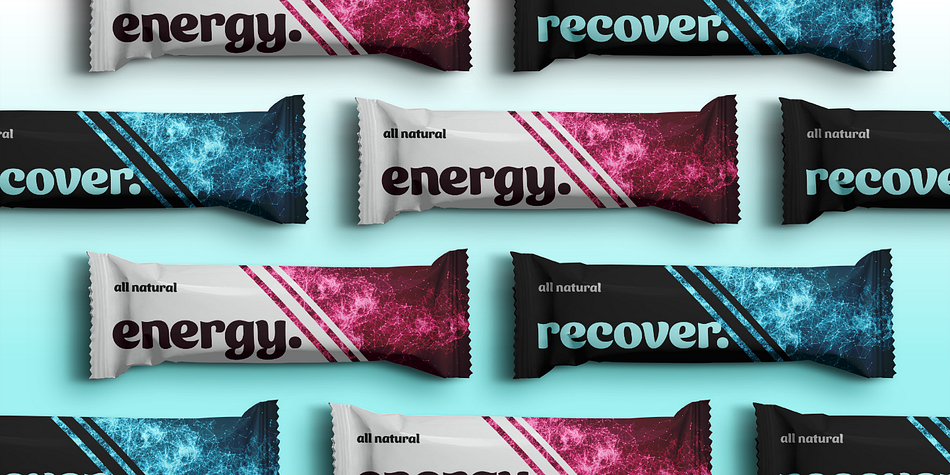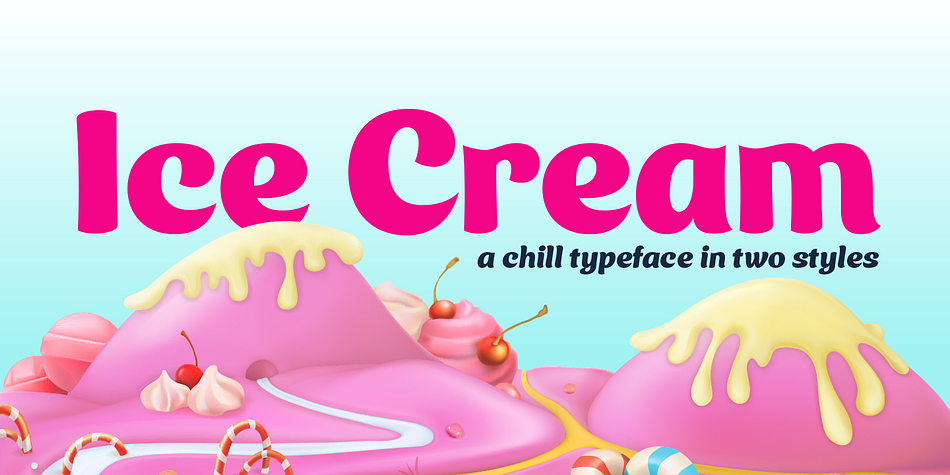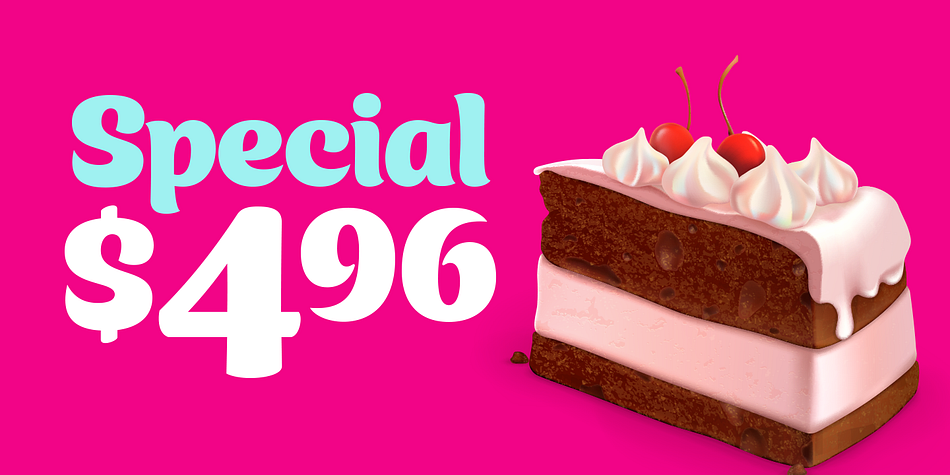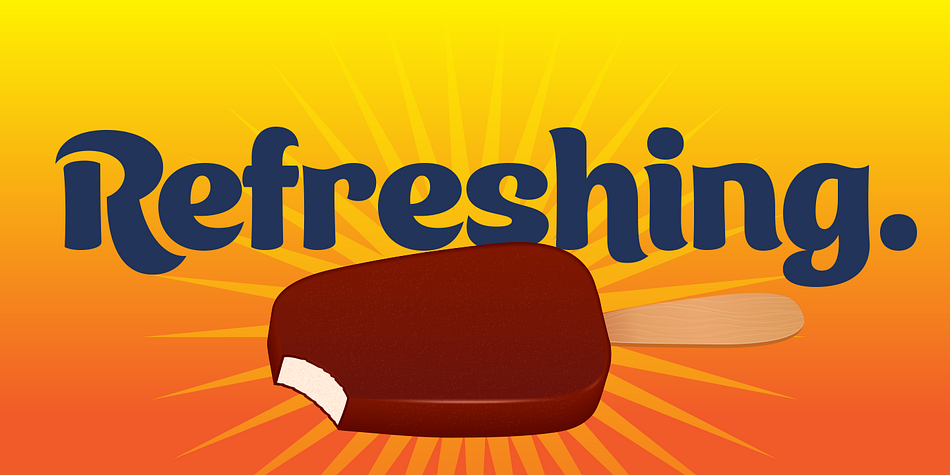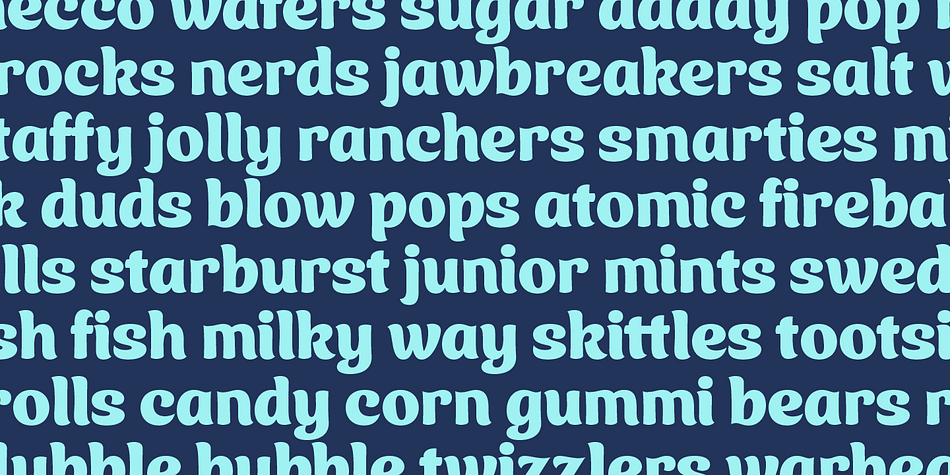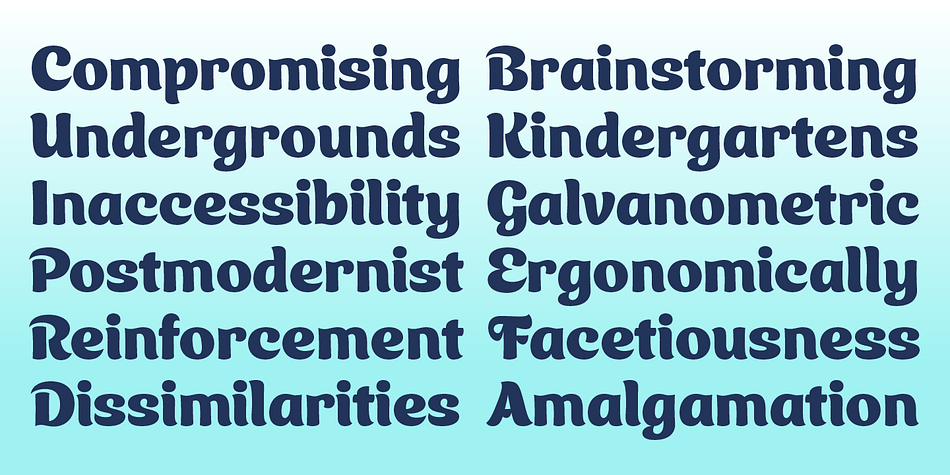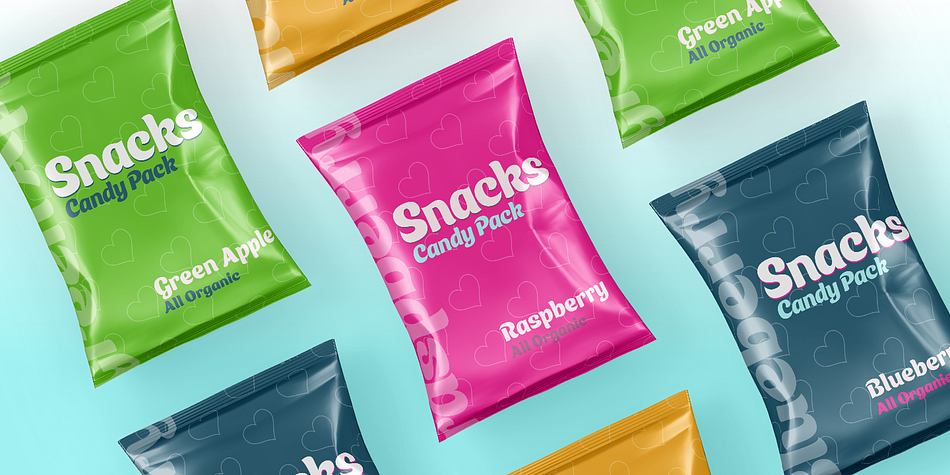
Designed by Neil Summerour, Ice Cream is a display sans and hand display font family. This typeface has two styles and was published by Positype.
Ice Cream is the product of an abandoned typeface concept a non-connected script for food packaging. The original exemplars were so iconic, so inspiring, it demanded completion. Curvy with a huge dollop of fun, to be honest, and I wouldn’t have it any other way with this one. Influenced heavily by Kari and Juicy (and even the shameless copies of my originals, wink wink), Ice Cream’s recipe blends in some very simple elements that are unobtrusive and clean, perfect for packaging designs, children’s books, and anywhere a light-hearted scoop with a cherry on top is needed.